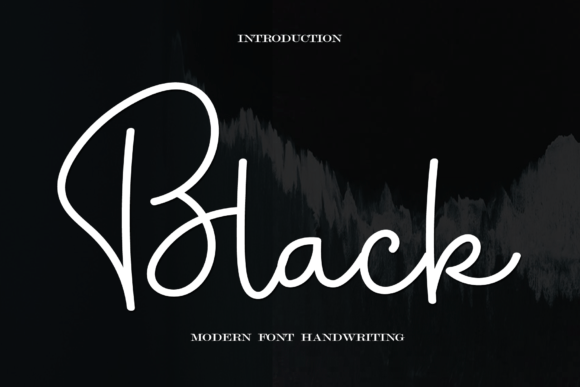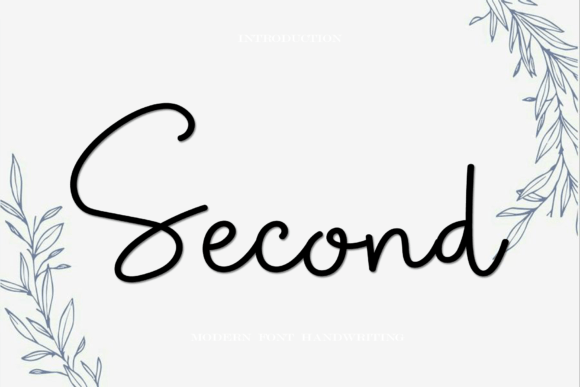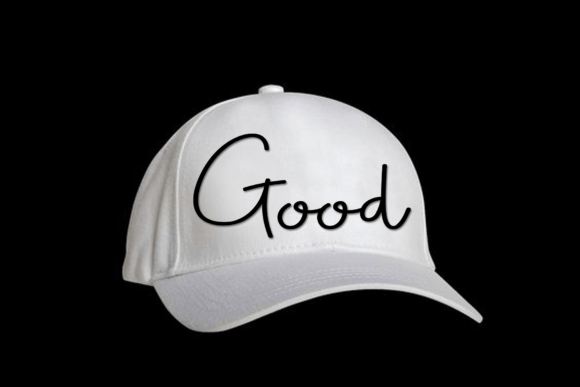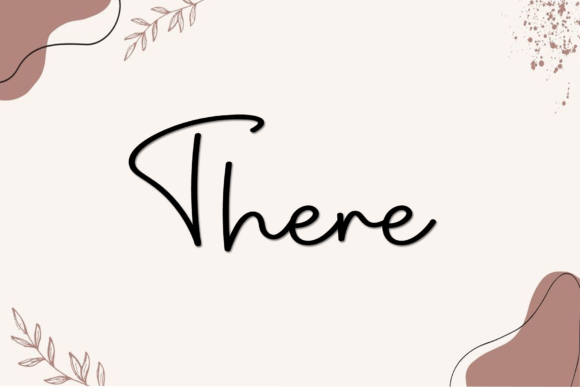
Black Font
A Classic Handwritten Script Font with a Freestyle Touch
Black Font is a classic handwritten script typeface designed with a random and freestyle style, offering a unique and authentic look for your designs. Its fluid strokes and organic flow give it a casual yet elegant appearance, making it suitable for a wide range of creative projects. Whether you’re working on logotypes, corporate branding, or social media graphics, the Black Font adds a personalized and timeless touch to your designs.
Perfect for Logos and Branding Projects
For logos and corporate identity, the Black Font is an excellent choice. Whether you’re designing a personal brand logo, a small business identity, or a luxury brand, this font brings a unique, handwritten style that helps your brand stand out. Its freestyle nature gives your logo a distinctive and creative appearance while maintaining a professional look. The Black Font is perfect for companies in industries like fashion, entertainment, and lifestyle, as it conveys creativity, authenticity, and personality.
Ideal for Headlines and Advertising
The Black Font is also perfect for headlines and advertising. Whether you’re designing posters, magazine covers, or social media graphics, this font adds an eye-catching bold style that grabs attention. Its freestyle design ensures that your headlines and advertisements stand out with a memorable, creative touch. Use the Black Font to make your advertising materials, flyers, and event promotions both attractive and impactful.
Great for Apparel and Merchandise Design
For apparel designs and merchandise, the Black Font offers a stylish, bold handwritten look that works well for t-shirt designs, sweatshirts, or hats. Whether you’re creating designs for a streetwear brand, music merchandise, or custom clothing, this font ensures your products have a unique, edgy appearance that stands out. Its organic handwriting style makes it perfect for apparel in the fashion and youth culture industries, as it conveys a sense of creativity and individuality.
Ideal for Music, Movies, and Games
For the music, movies, and games industries, the Black Font adds a distinctive, artistic flair to your posters, album covers, and promotional materials. Whether you’re designing for concerts, film festivals, or game titles, this font captures the energy and creativity of the entertainment industry. Its freestyle design gives your work a unique and raw feel, making it perfect for creative projects that want to make an impact.
Perfect for Comics, Cartoons, and YouTube
The Black Font is also ideal for comics, cartoons, and YouTube videos. Whether you’re creating comic book covers, cartoon titles, or YouTube video thumbnails, this font gives your designs a playful, bold appearance that appeals to a wide audience. Its random and freestyle design ensures your titles feel dynamic and fun, making it perfect for creative projects targeting younger audiences.
Versatile, Legible, and Creative
Despite its freestyle design, the Black Font remains legible and easy to use. Its well-spaced characters and distinctive strokes ensure that your text is clear and readable, even for longer passages or smaller sizes. Whether you’re using it for captions, headlines, or body text, this font strikes the perfect balance of creativity and readability, making it suitable for a wide range of design applications, from print to digital media.
The Black Font is easy to use and integrates smoothly into most design software. Whether you’re working on logos, magazine covers, posters, or social media content, this font ensures your designs look polished and professional while maintaining a creative, handwritten touch. Its versatility makes it perfect for both print and digital media, giving you the flexibility to use it across various projects with ease.
Add Creativity and Boldness to Your Designs with Black Font
If you’re looking for a cool, bold handwritten font that adds a creative, authentic touch to your designs, the Black Font is the perfect choice. Whether you’re designing logos, headlines, apparel, or social media posts, this font brings a distinctive, artistic feel to your work. Let the Black Font help you create memorable, engaging designs that leave a lasting impression.